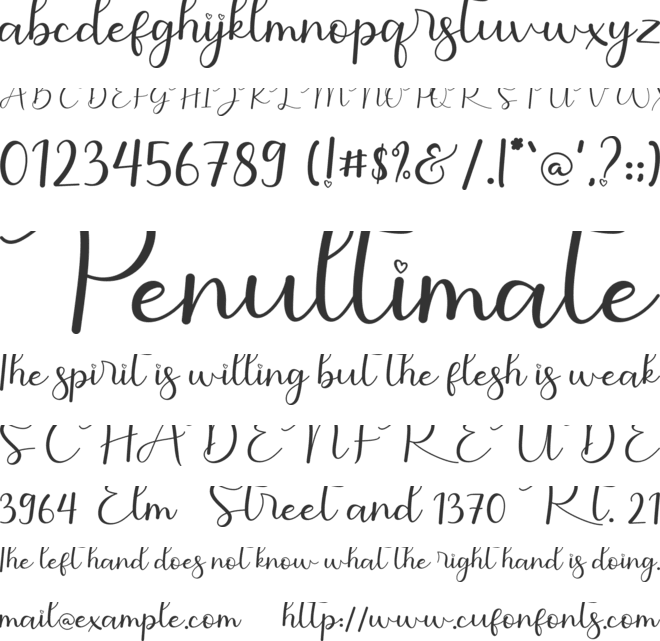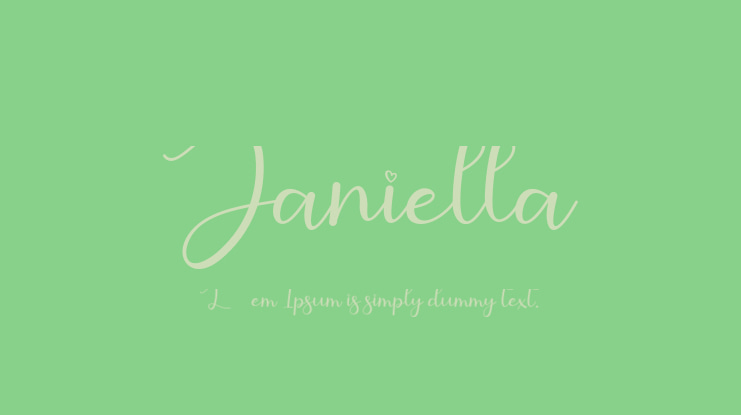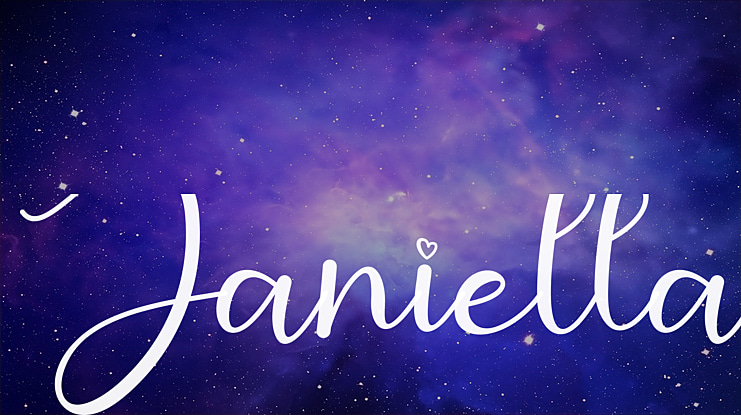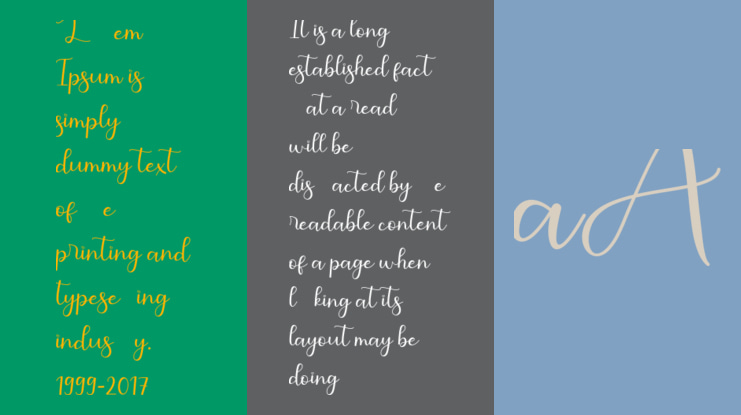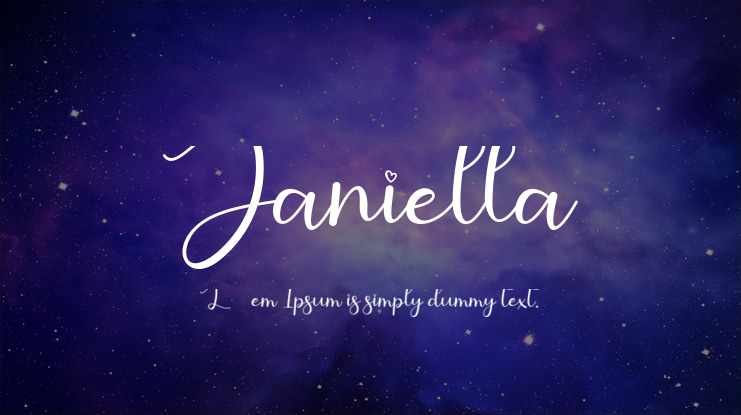
Janiella Font
Janiella is a romantic and sweet calligraphy font that has a beautiful selection of ligatures and swashes to choose from. This font is PUA encoded which means you can access all of the glyphs and swashes with ease! No matter the topic, this font will be an incredible asset to your fonts’ library, as it has the potential to elevate any creation.